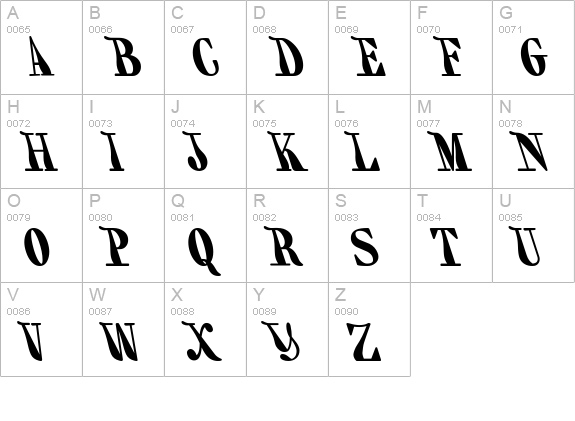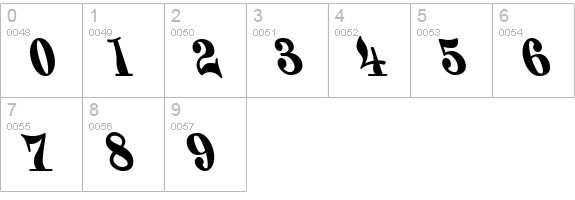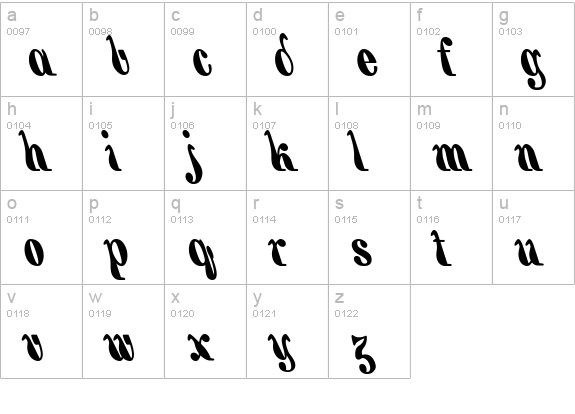
Backhand Brush Font Details
Backhand Brush font is a stunningly elegant and versatile typeface that will add a touch of sophistication to any design project. Its unique brush-stroke style gives it a handcrafted feel, making it perfect for a wide range of applications such as logos, branding, packaging, headlines, and more. This font features a beautiful balance between thick and thin strokes, creating a visually pleasing contrast that catches the eye. Its graceful curves and smooth lines make it a joy to work with, whether you're designing a wedding invitation or a social media post. One of the standout features of Backhand Brush font is its ability to convey a sense of warmth and personalization. It effortlessly blends classic calligraphy with modern design aesthetics, resulting in a font that is both timeless and contemporary. The best part? Backhand Brush font is available for free download at FontsMarket.com. This means that you can use it in both personal and commercial projects without breaking the bank. Whether you're a professional designer or a DIY enthusiast, this font is a valuable addition to your creative toolbox. So why wait? Download Backhand Brush font today and elevate your designs to new heights. With its versatility, elegance, and the fact that it's free, there's no reason not to give it a try. Unleash your creativity and watch your designs come to life with this beautiful and accessible typeface.